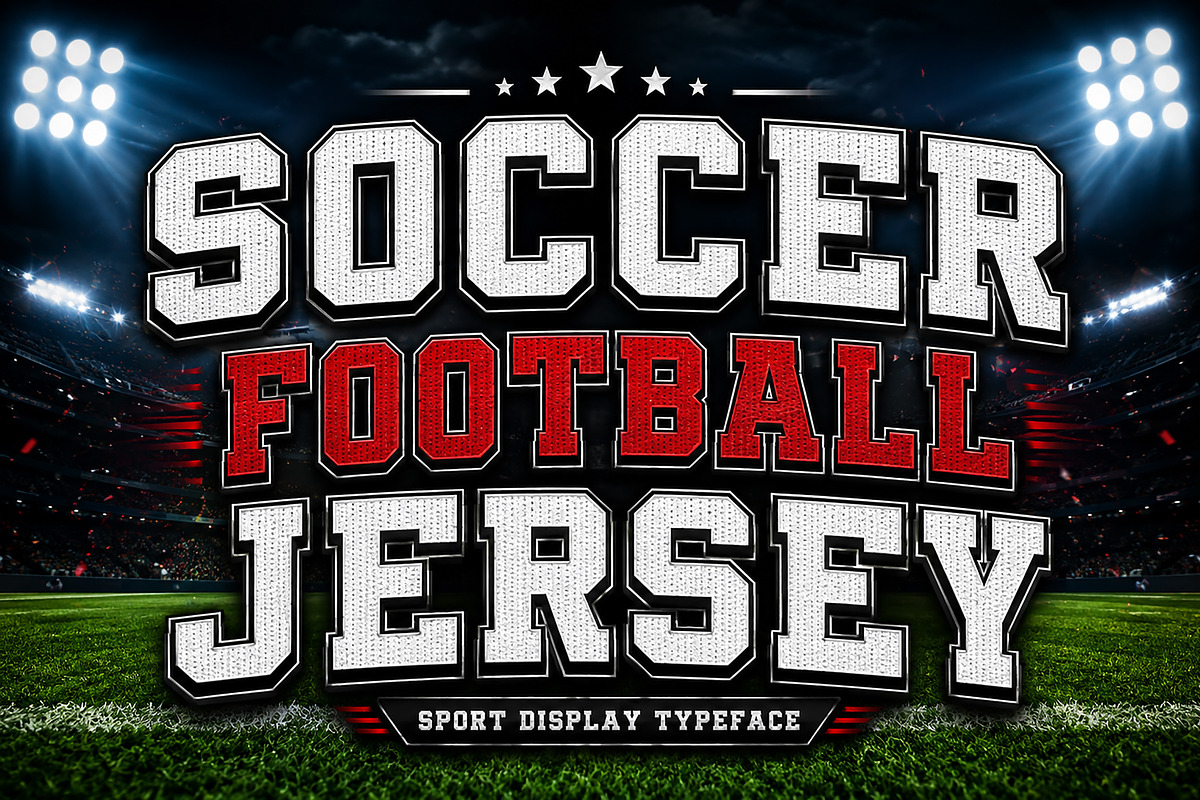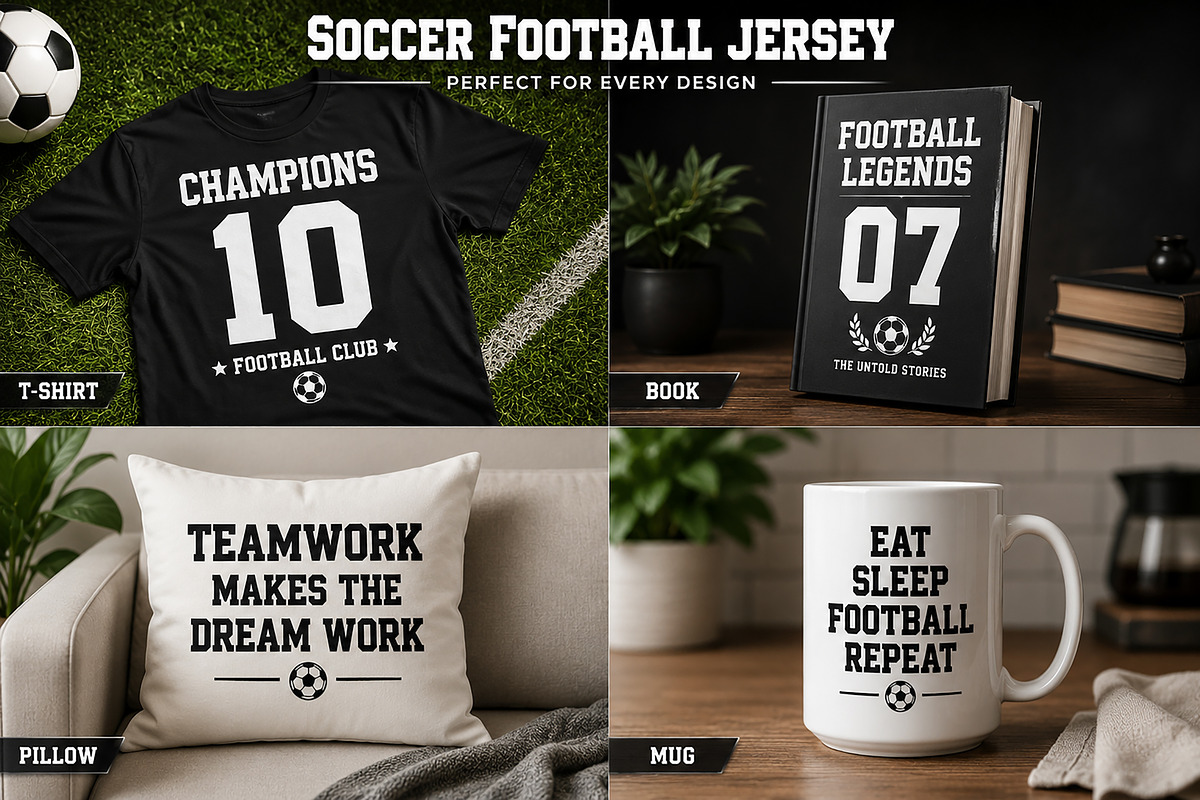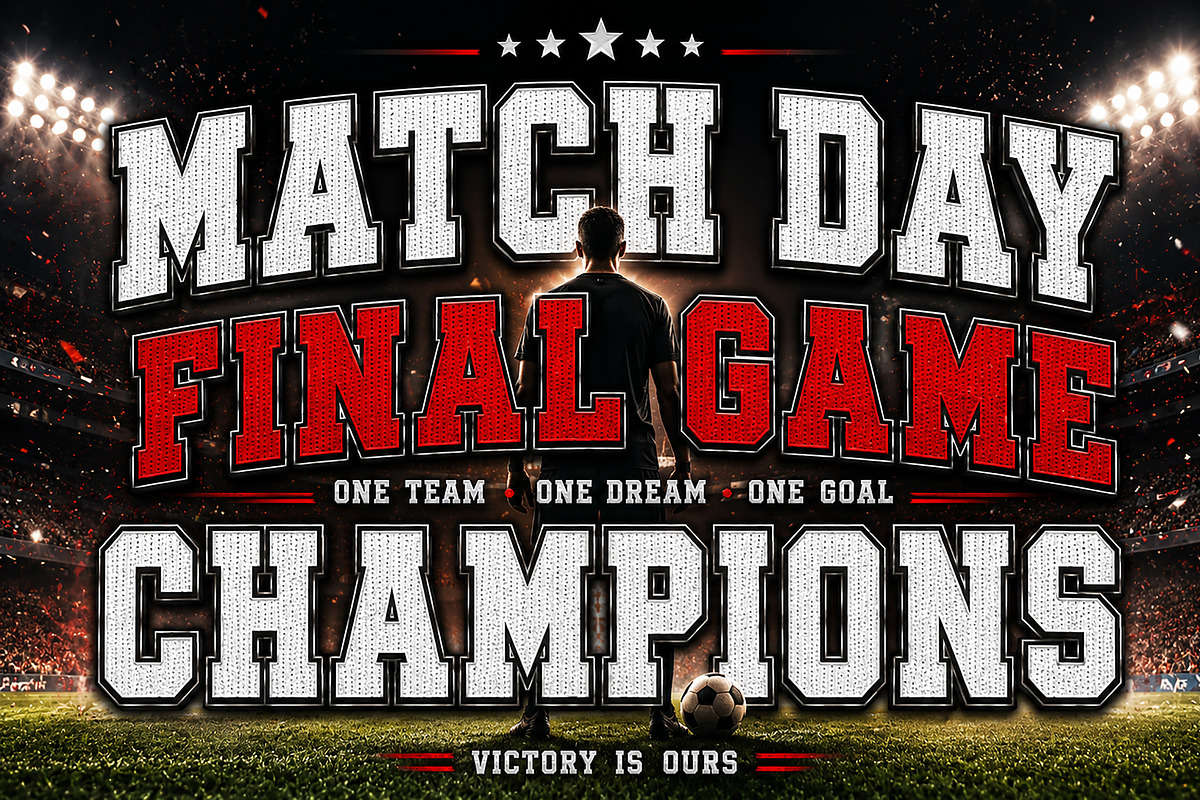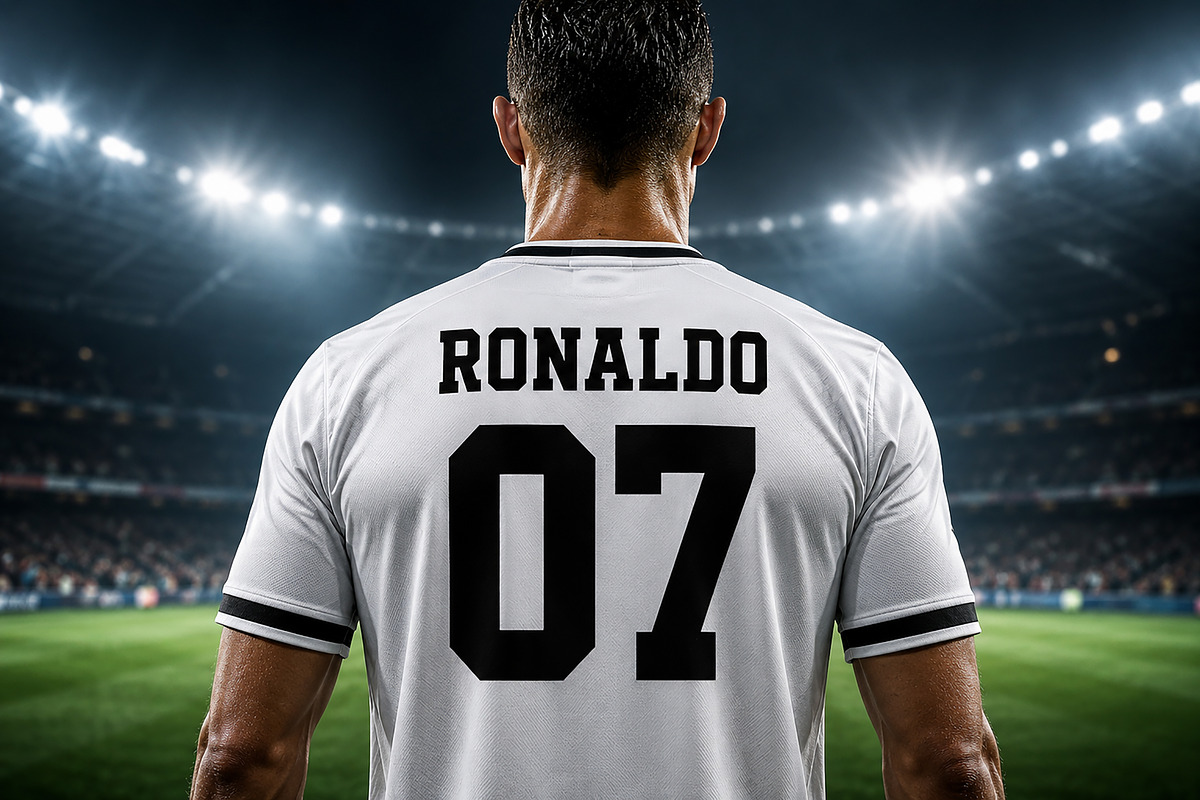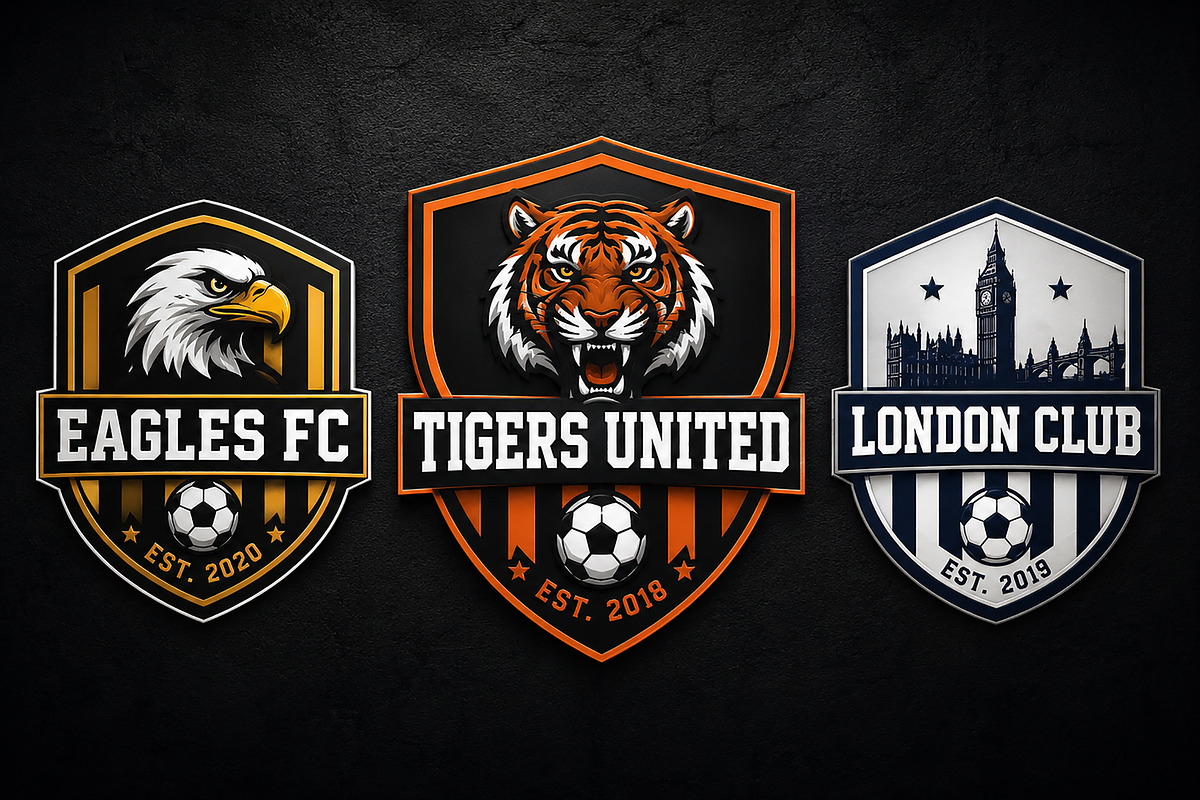
Soccer Football Jersey
Soccer Football Jersey – Display Font / Sports Font / Jersey Font
Soccer Football Jersey is a bold athletic display font inspired by classic soccer, football, and team jersey lettering. Its strong block-style shapes, slab-serif details, and sporty structure make it perfect for powerful sports branding and competitive design projects.
This font is ideal for jersey names, player numbers, team logos, sports posters, club branding, varsity graphics, apparel, merchandise, gaming titles, and bold headline typography. Soccer Football Jersey gives every design an energetic, professional, and championship-ready look.
Soccer Jerseys
Football Jerseys
Team Logos
Club Branding
Player Names & Numbers
Sports Posters
Varsity Designs
Apparel & T-Shirts
Bold Headlines
Bold Sports Display Style
Athletic Jersey Letterforms
Strong Slab Serif Look
Uppercase Characters